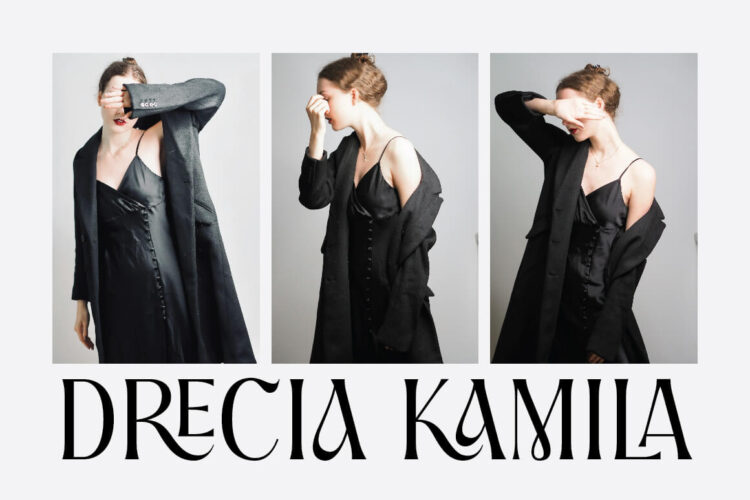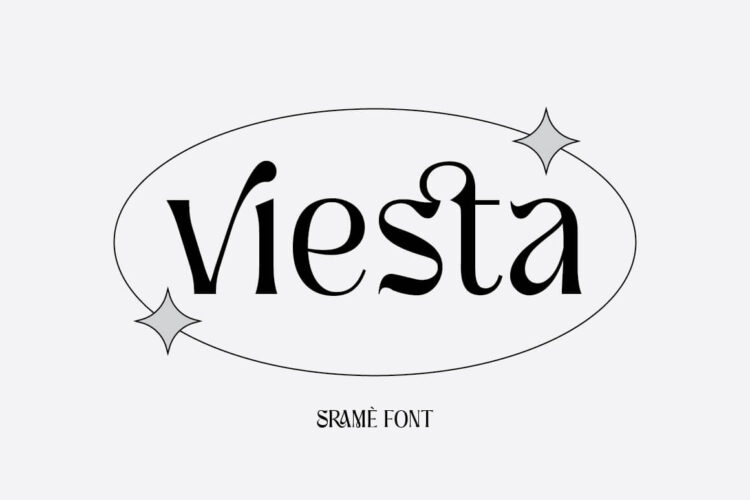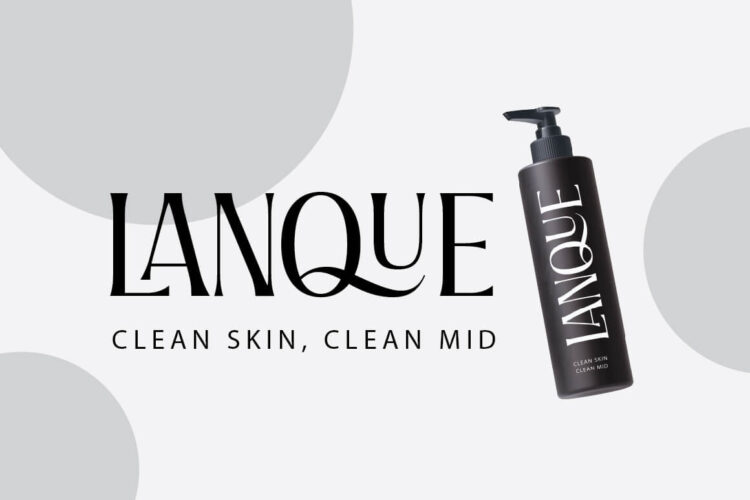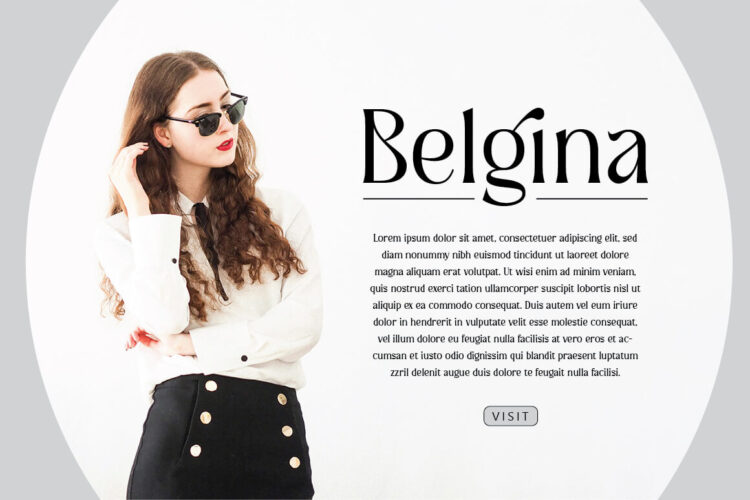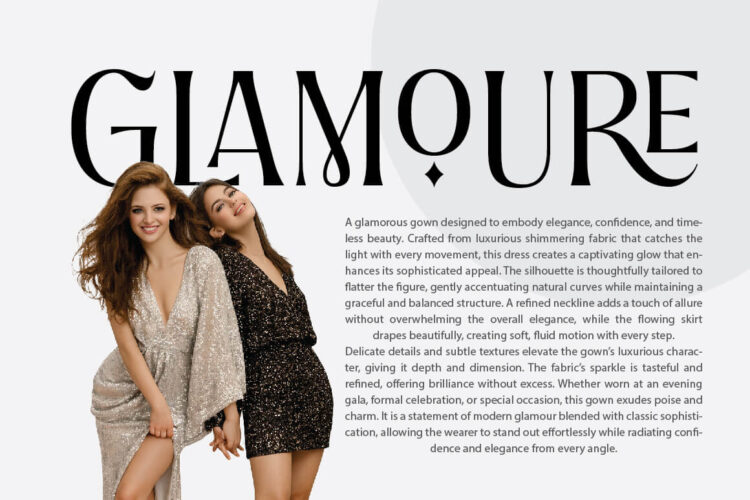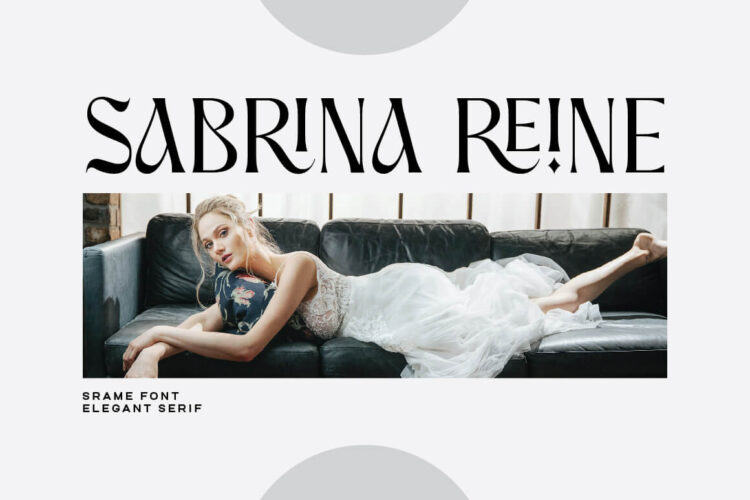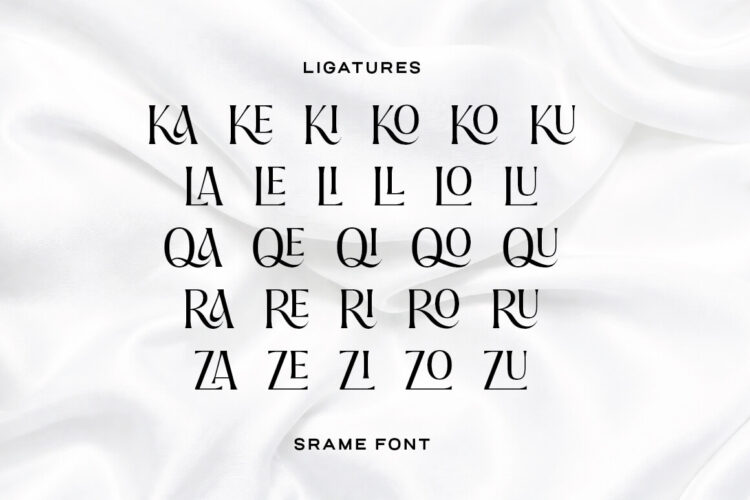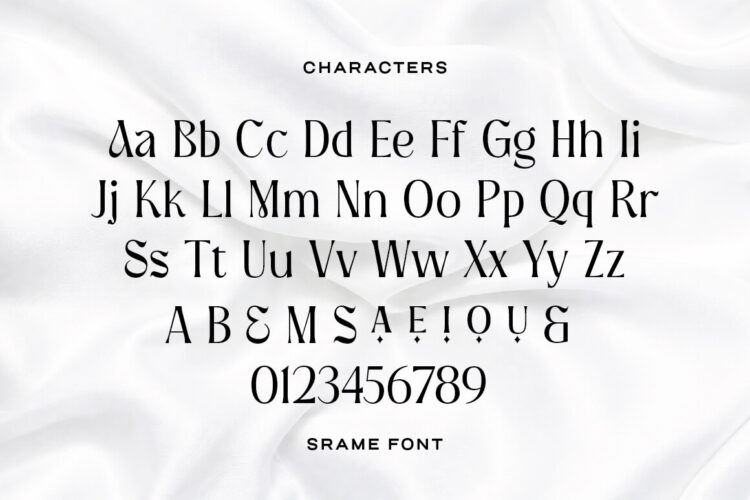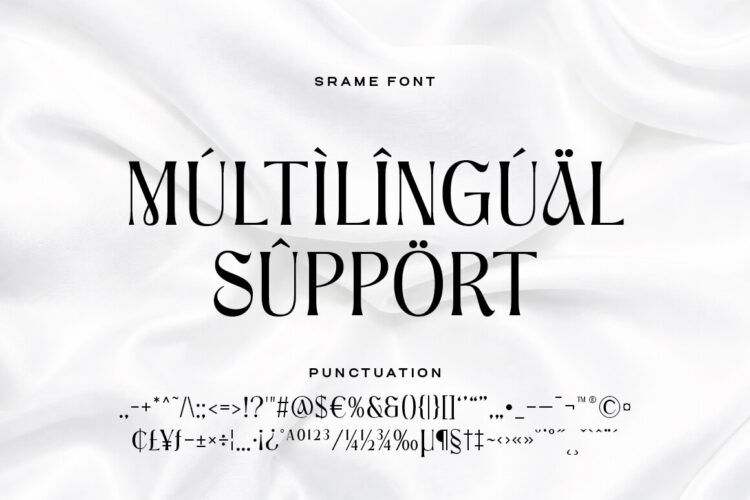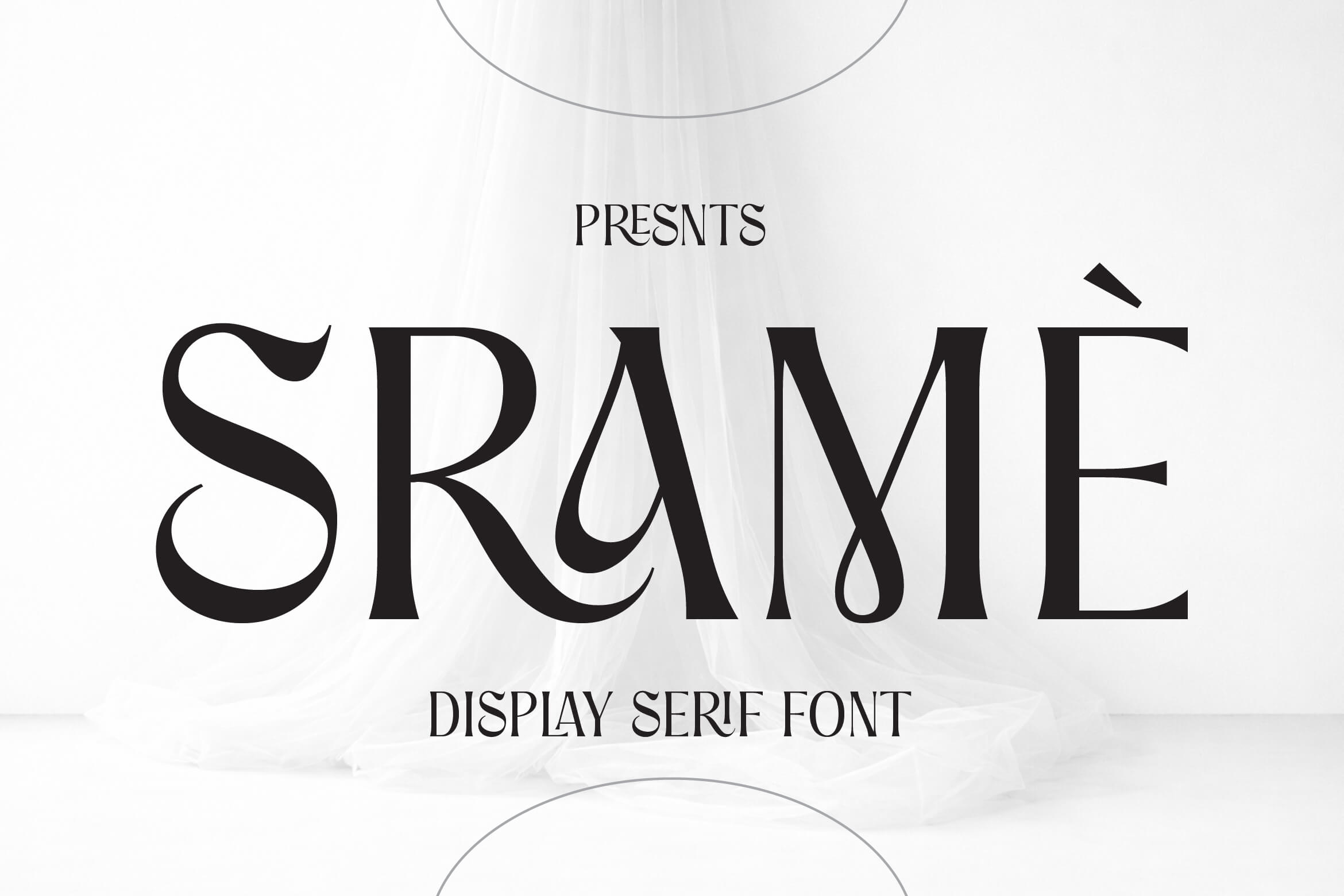
Srame - Modern Stylish Serif Font
Srame
Srame is an elegant modern serif typeface with refined curves and stylish ligatures. Designed to create a sophisticated and high fashion look, it is perfect for logos, editorial layouts, beauty branding, invitations, magazines, and premium packaging. Clean, classy, and expressive, Srame brings timeless elegance to every design.
– Uppercase & Lowercase
– Numbers & Punctuation
– Ligature
– Multilingual Support